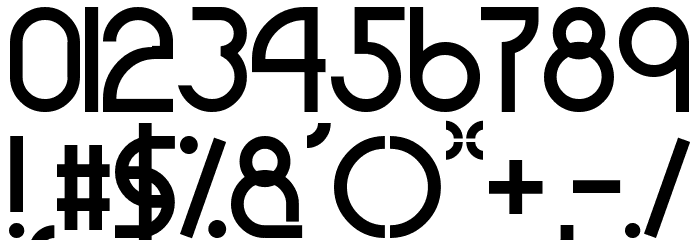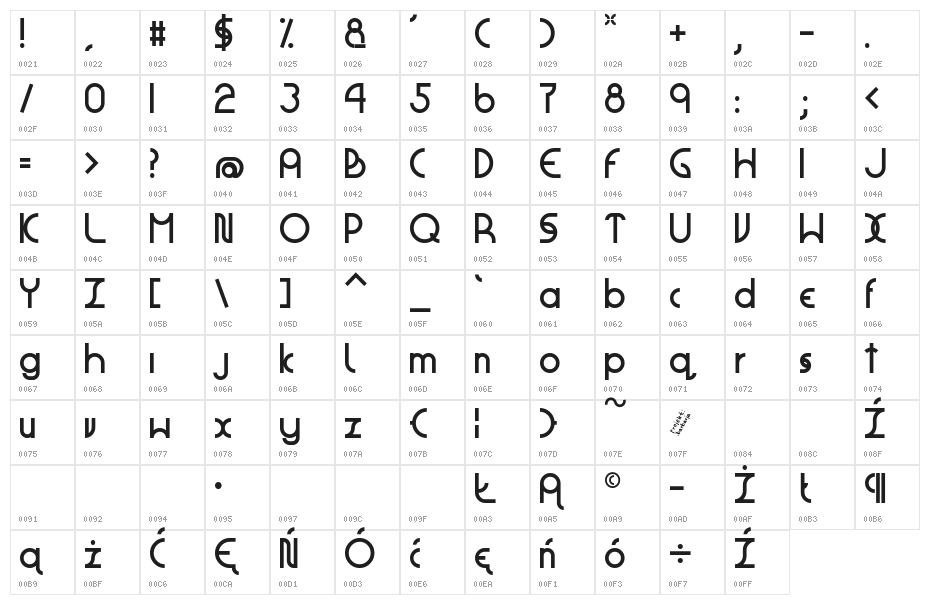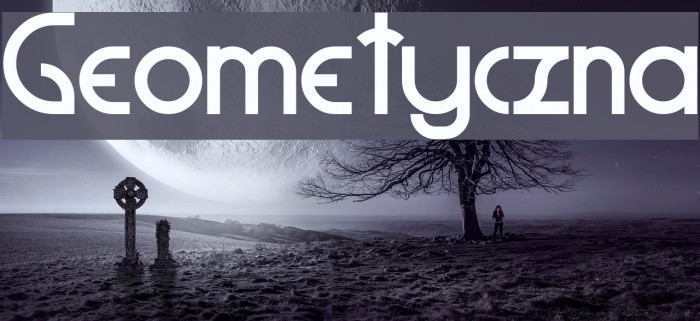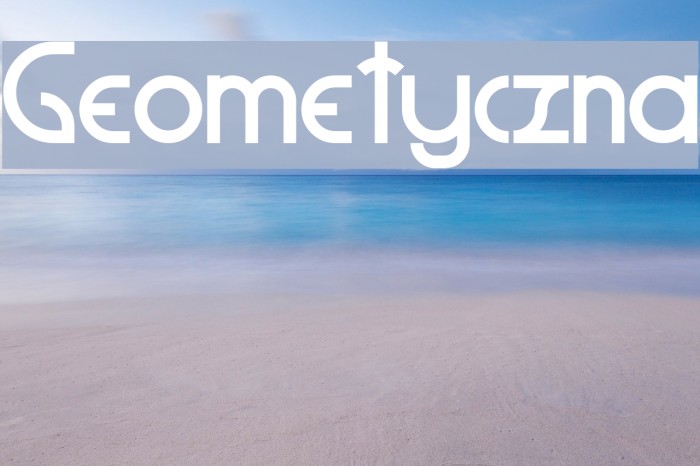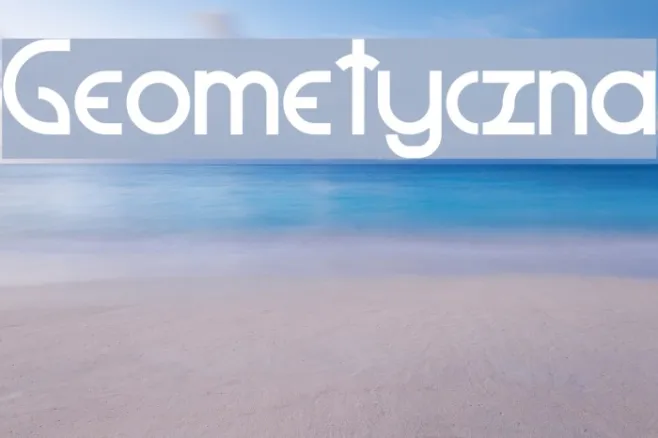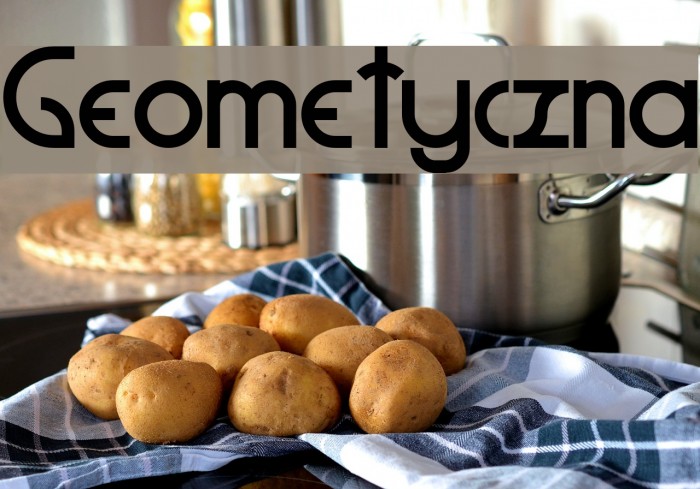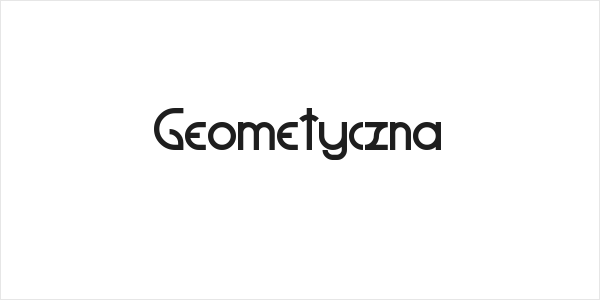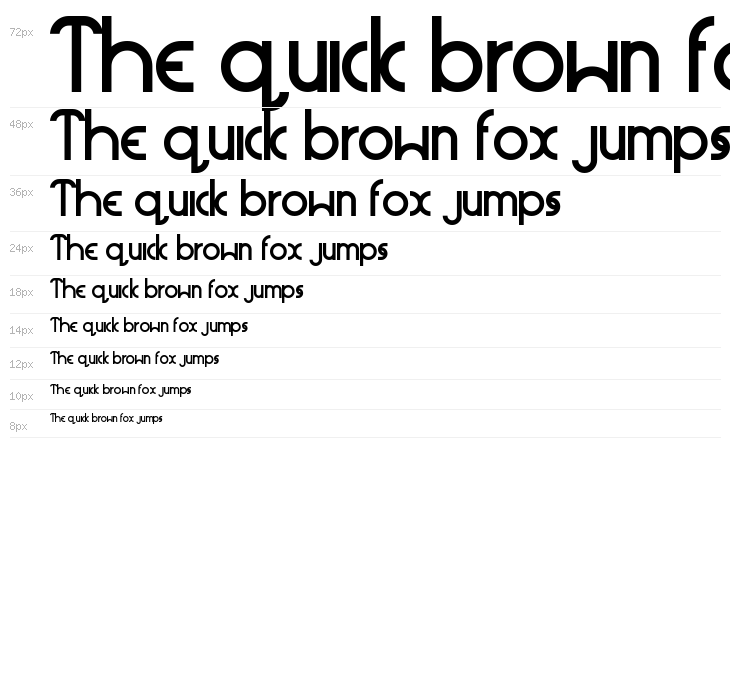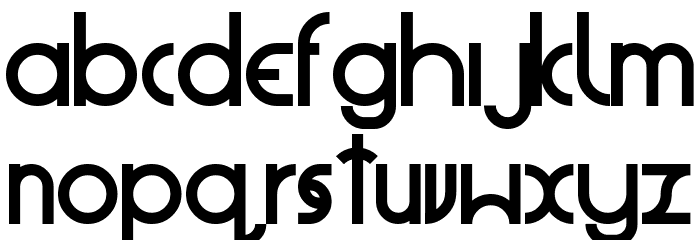
Geometyczna Font
Geometyczna Description
This font features a geometric and modern design, characterized by its clean lines and circular shapes. The uppercase letters exhibit a strong presence with their bold and structured forms, while the lowercase letters maintain a consistent style with rounded edges and a uniform thickness. The numerals and special characters follow the same geometric principles, ensuring a cohesive look across all elements. The font's unique style is both eye-catching and versatile, making it suitable for a variety of design applications.